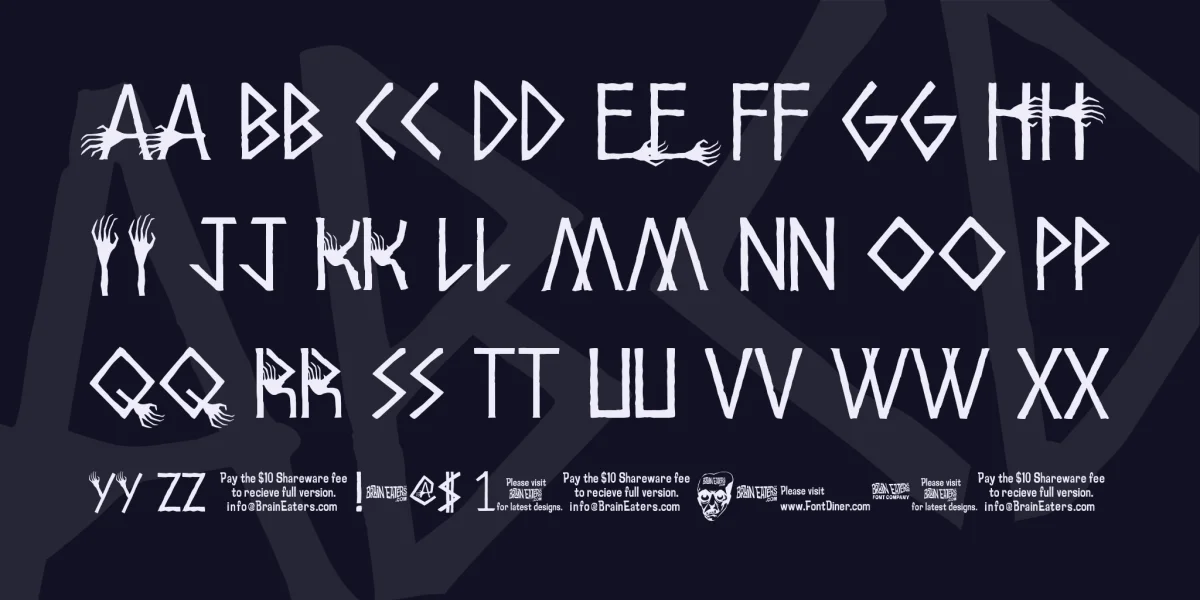
This font is from Brain Eaters Font Co. Fonts based on B-Movies, Horror, Sci-Fi, Exploitation Muzak and other trash. This type face is the lettering for a horrific new feature called 'The Amhole'. This typestyle is inspired by the punk band Part1. Quite a creepy typeface when used correctly. The upper and lower case both have different lettershapes.